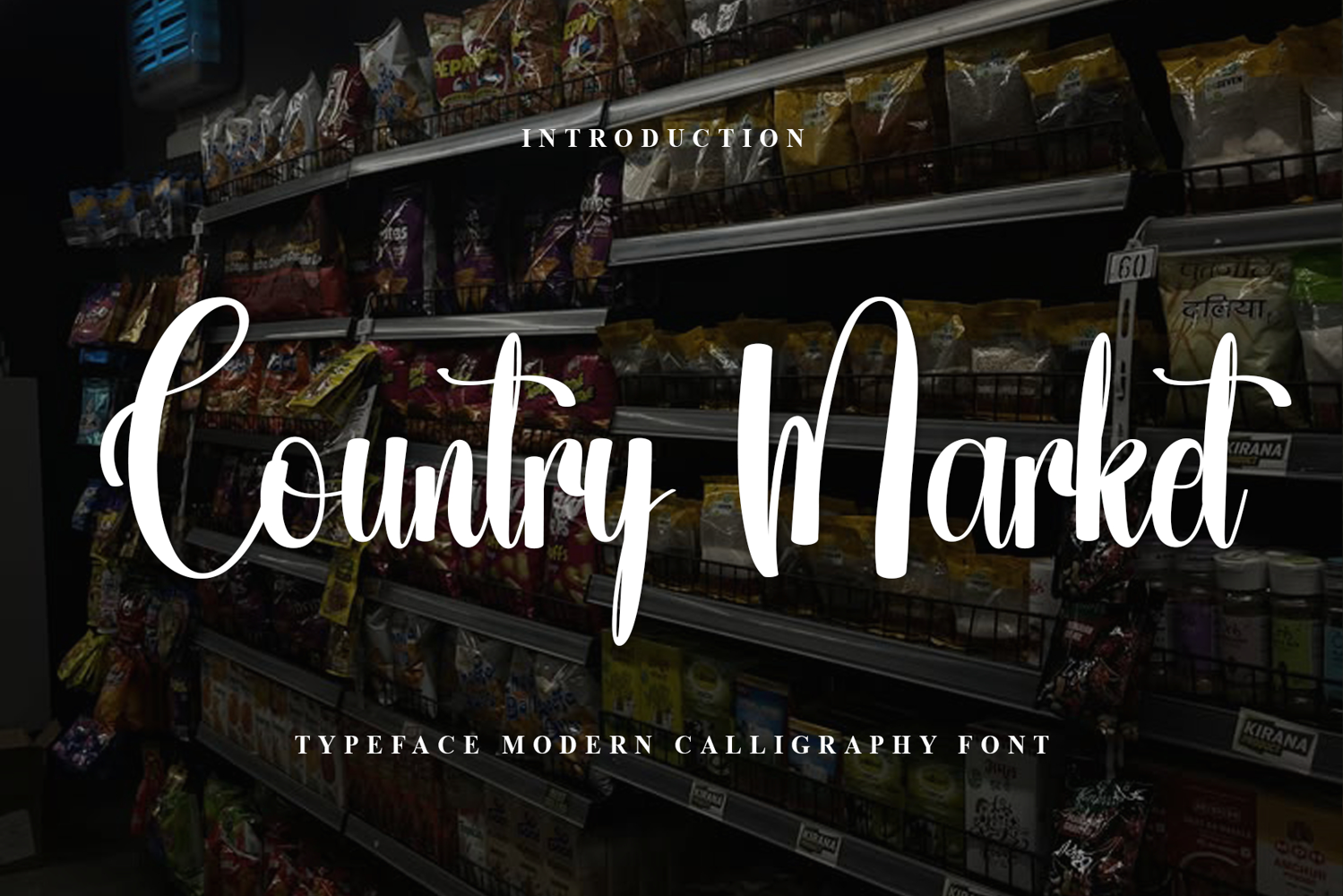
Country Market
Country Market is a beautiful and eye-catching font designed with a soft, unique touch. Its distinctive strokes give it a special character, making it meaningful and versatile for future use. With various characters, it’s perfect for design projects, crafts, and other creative works.